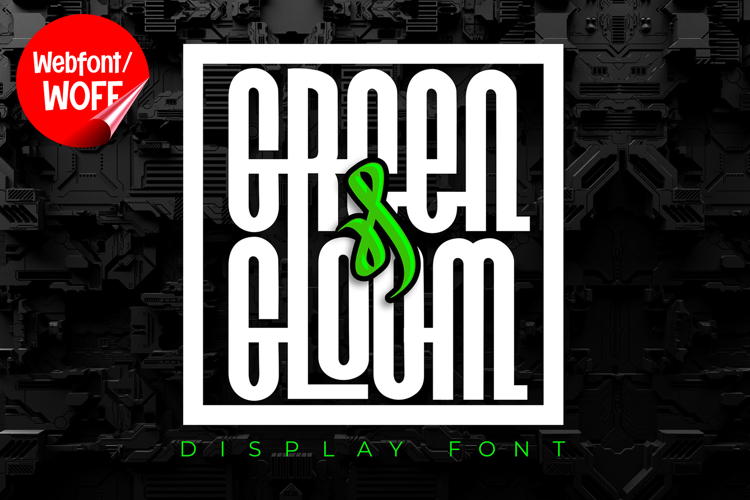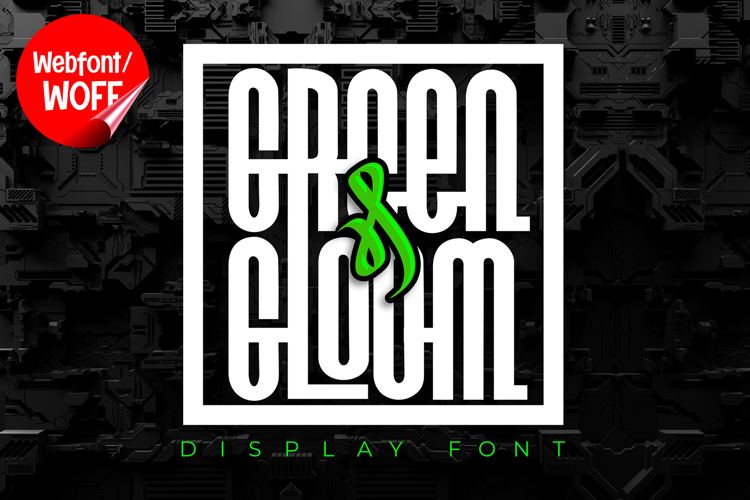
Green and Gloom | Modern Logotype Webfont for Stylish Brand
Green and Gloom is a modern logotype webfont designed to deliver a clean, stylish, and professional look for contemporary website design. With its refined structure and balanced proportions, this font offers a sophisticated typographic solution that works perfectly for branding-focused projects. It is an excellent choice for designers and businesses looking to create a strong and memorable visual identity.
Green and Gloom includes a complete set of uppercase characters designed with a modern logotype approach. The letterforms are clean, structured, and visually balanced, making them ideal for logos, headlines, banners, and hero sections. The simplicity of the design allows it to adapt easily to various branding needs while maintaining a professional appearance.
In addition to letters, the font includes numbers and punctuation, providing flexibility for different website elements. It works well for product names, promotional text, navigation highlights, and brand messaging. Each character maintains a consistent modern style, ensuring a cohesive and unified visual identity throughout the layout.
With multilingual support, Green and Gloom includes a wide range of accented characters, making it suitable for international websites and global audiences. This ensures that content can be presented clearly across different languages while maintaining a consistent and elegant design.
The modern logotype style of Green and Gloom makes it especially suitable for corporate websites, startups, fashion brands, creative agencies, and digital portfolios. Its clean and versatile design allows it to be used across various industries, from minimal branding to more expressive visual concepts. The refined structure helps communicate professionalism, clarity, and modern aesthetics.
Despite its minimal and structured appearance, Green and Gloom is designed with readability in mind. The spacing and proportions are carefully balanced to ensure clarity, particularly in display sizes. This allows designers to use the font confidently for impactful headings and brand elements without compromising usability.
Green and Gloom is a webfont that combines modern logotype aesthetics with high-performance web functionality. Its clean shapes, balanced design, and professional character create a distinctive typographic presence that enhances website design. For projects that require a sleek, modern, and visually engaging font, Green and Gloom offers a reliable and versatile solution.